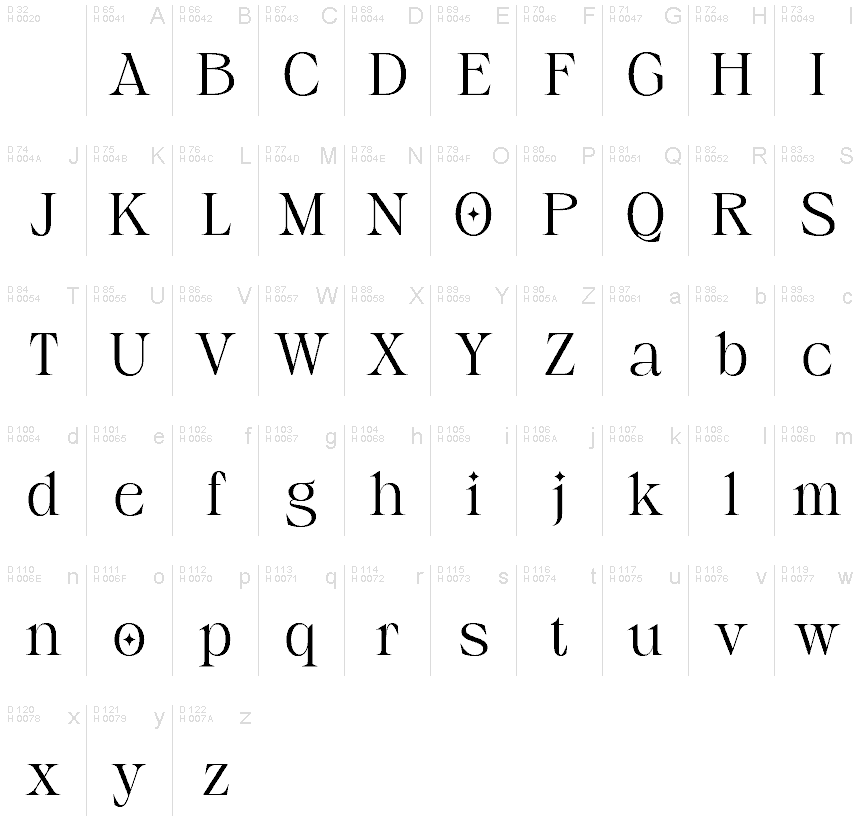
CS Flora Regular Demo
CS Flora font by Craft Supply Co. beautifully fuses traditional serif aesthetics with nature-inspired decorative elements, particularly floral motifs. This elegant and sophisticated typeface exudes timeless classic style, effortlessly drawing the viewer’s attention. Each glyph is masterfully crafted to deliver a premium and distinguished look, ideal for professional projects.
Use this free serif font for brand identities, packaging designs, marketing materials, invitation cards, book covers, signage designs, advertising material and various other print or digital artworks that need a luxurious touch.